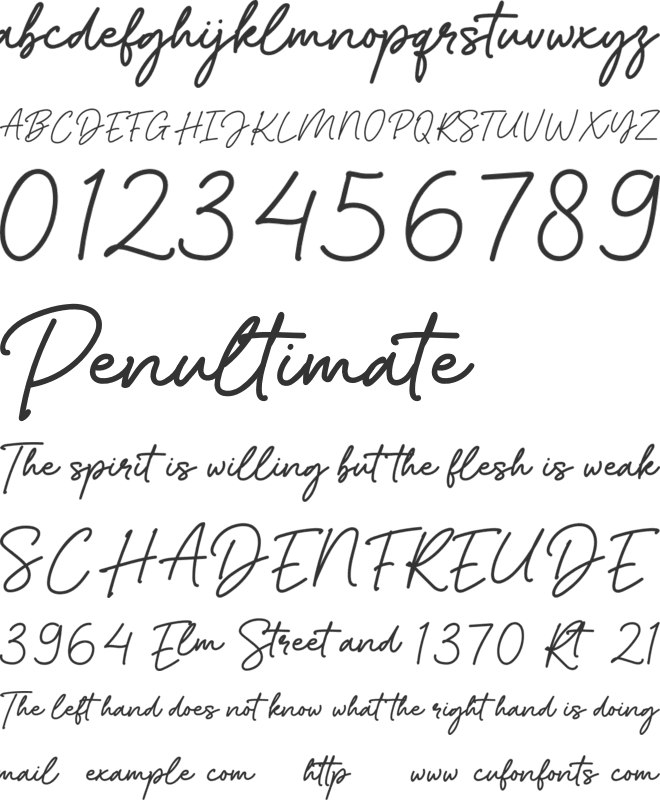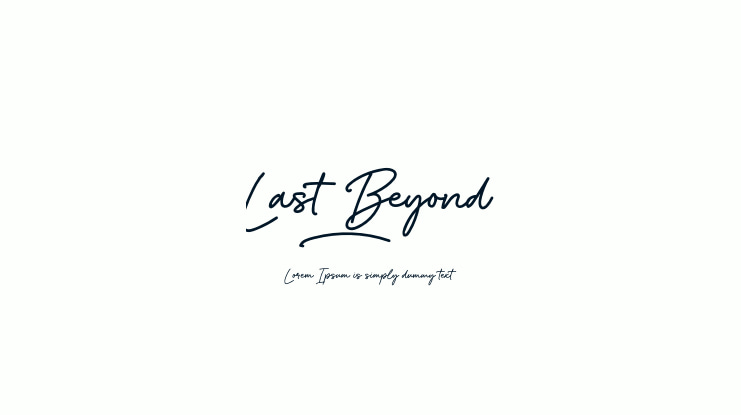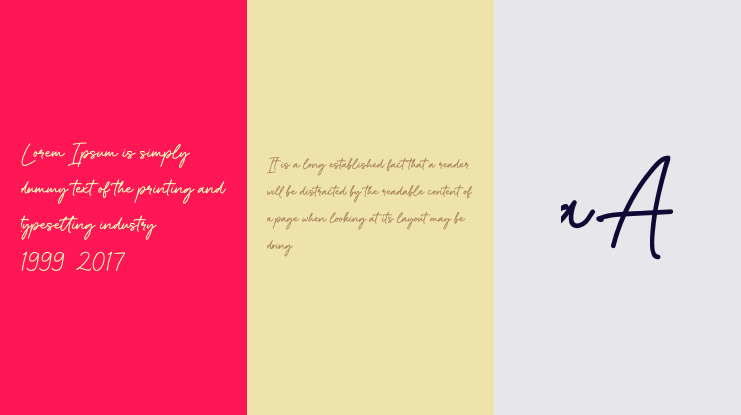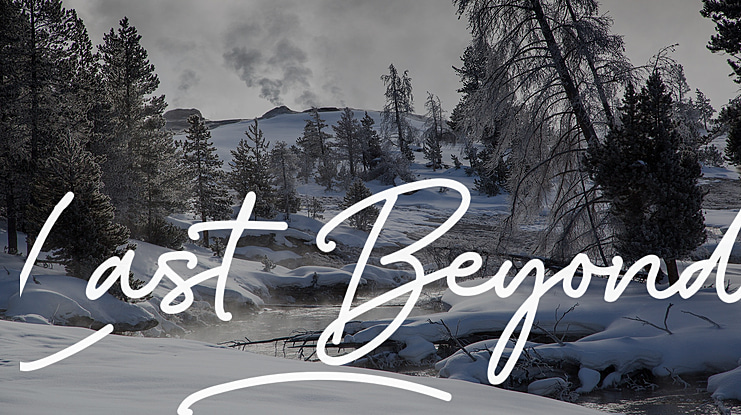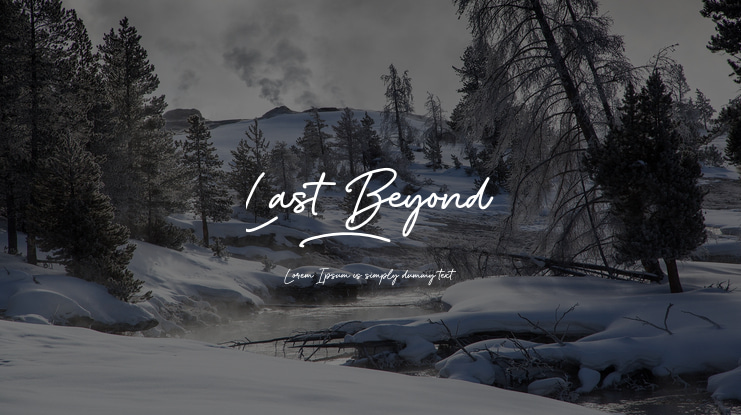
Last Beyond Font
Last Beyond is stylish signature font made with a modern and elegant touch to give your any project to a unique design.
This font is perfect for your creative ideas, both formal and informal. It has a modern style with a touch of creative ideas that is very suitable to be applied anywhere that requires creative ideas such as invitation cards, letterheads, website logos, social media, banners, advertisements, brochures, packaging products, leather products, and any product that requires writing.